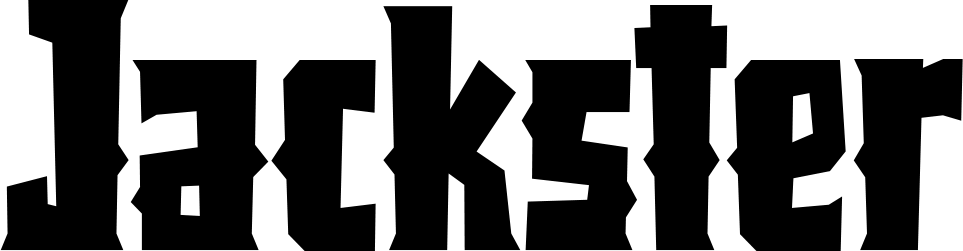
Jackster Font
Jackster is a Western font, and like all the fonts in this category, will give a nostalgic and raw feeling to your texts and make good headlines. Jackster can be used to make bold headlines, country music names and album…
Jackster is a Western font, and like all the fonts in this category, will give a nostalgic and raw feeling to your texts and make good headlines. Jackster can be used to make bold headlines, country music names and album titles, movie names, and tattoo and jewelry prints.